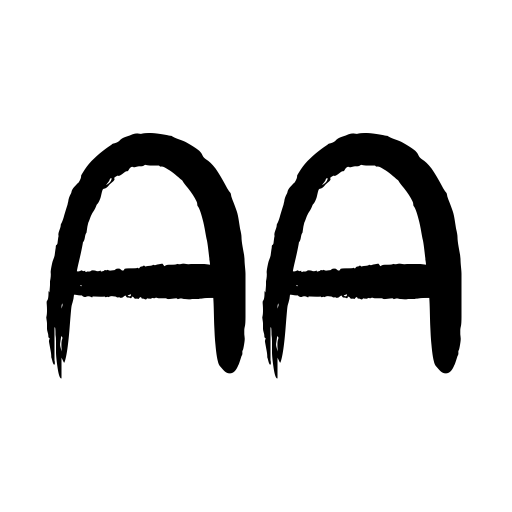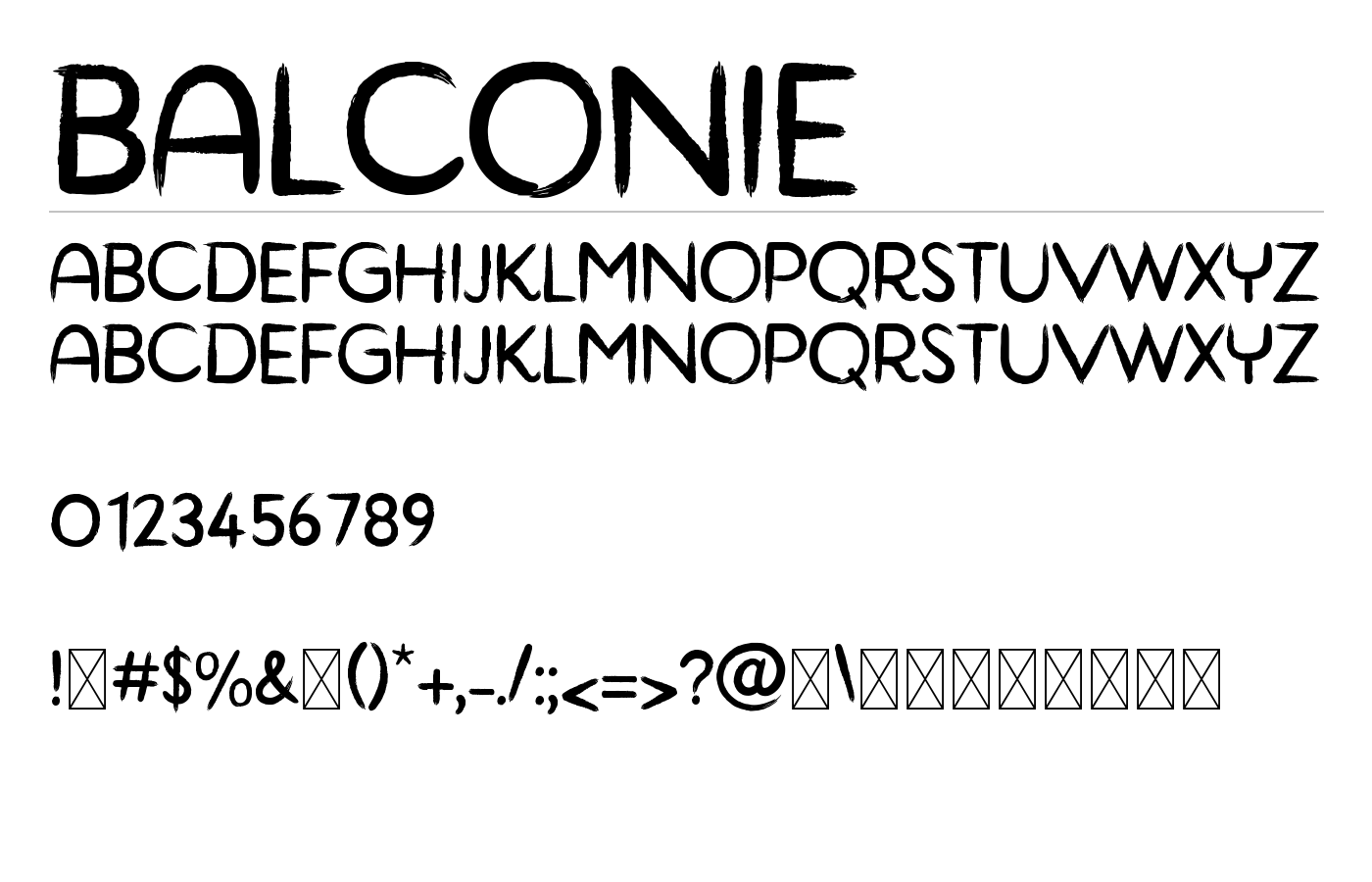
Balconie is a distinctive handwritten sans serif font with a playful yet organic feel, featuring uneven stroke widths and rough, brush-like textures. Its tall x-height and casual letterforms give it a friendly, informal character that works well for creative projects, branding, and packaging looking for a personal, artistic touch. This font is ideal for headlines and display purposes where a handcrafted, approachable vibe is desired.
BALCONIE Font
About BALCONIE Font